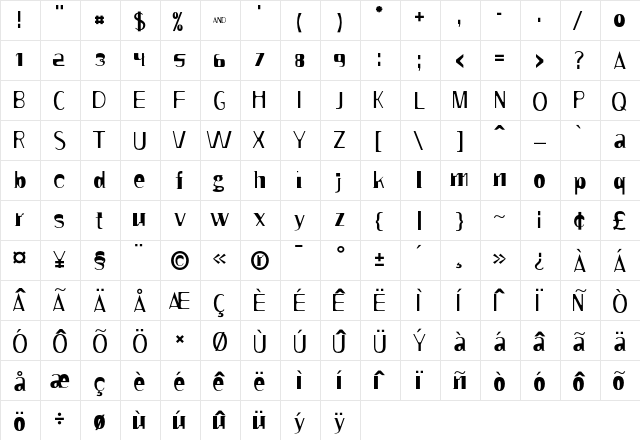
Colony Regular Font Preview
Colony Regular
Design Context for Colony Typeface
Colony offers clean, dependable letterforms without strong stylistic allegiance, making it a practical choice for designers who need flexibility.
Pro Tip: Use Colony in both headline and body roles to test its range before committing to a single application.